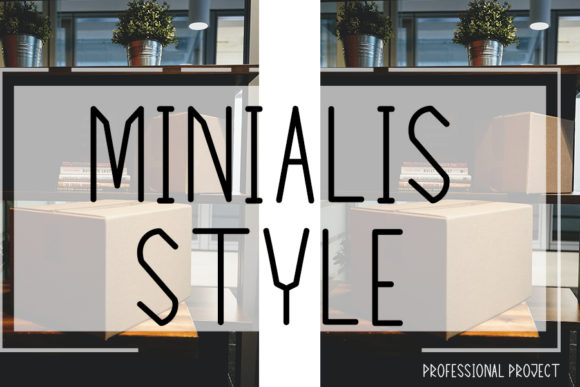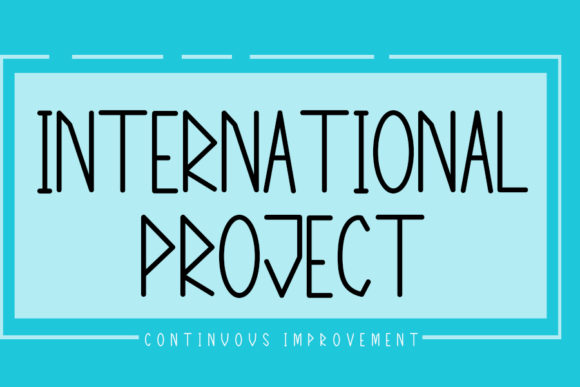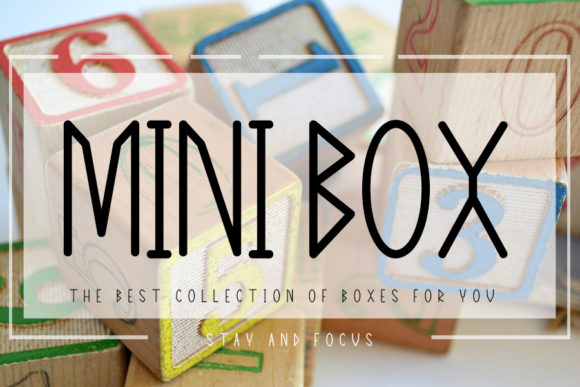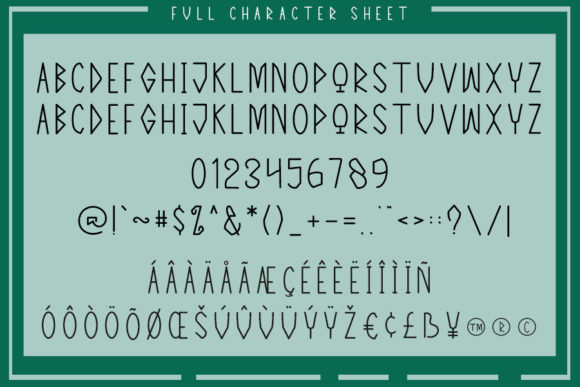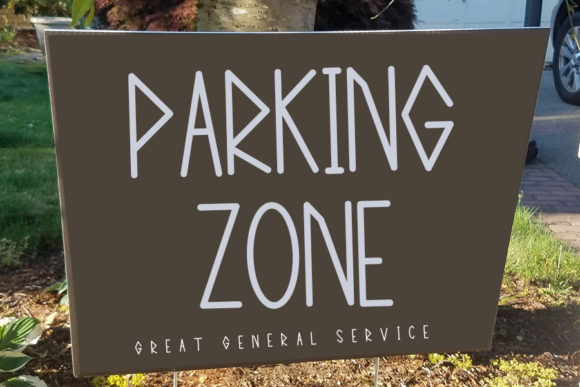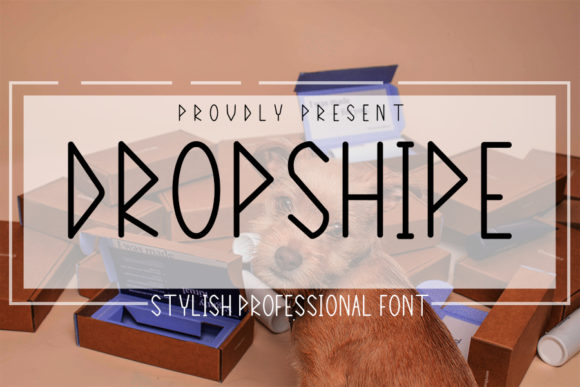
Dropshipe Font: Elevate Your Designs with a Modern Sans Serif
Dropshipe is an interesting and neat sans serif font that has been gaining popularity among designers and crafters. Its clean and modern design makes it an excellent choice for a wide range of projects, from branding and advertising to packaging and digital media. In this article, we’ll explore the features and benefits of the Dropshipe font and how it can help you take your designs to the next level.
What is Dropshipe Font?
Dropshipe font is a sans serif typeface that boasts a fresh and contemporary look. Its sleek lines and minimalist design make it perfect for designs that require a clean and modern aesthetic. The font is highly versatile and can be used for various purposes, including logos, headings, and body text.
Key Features of Dropshipe Font
- Clean and Modern Design: Dropshipe font features a sleek and modern design that is perfect for contemporary designs.
- Sans Serif Typeface: The font is a sans serif typeface, making it ideal for designs that require a clean and minimalist look.
- Highly Versatile: Dropshipe font can be used for a wide range of projects, from branding and advertising to packaging and digital media.
- Easily Readable: The font is highly legible, making it perfect for body text and headings.
Benefits of Using Dropshipe Font
There are several benefits to using Dropshipe font in your designs. Here are a few:
- Stand Out from the Crowd: Dropshipe font is a unique and modern typeface that can help your designs stand out from the crowd.
- Perfect for Branding: The font is ideal for branding and advertising projects, as it can help create a clean and modern image for your brand.
- Easy to Pair: Dropshipe font can be easily paired with other fonts to create a unique and harmonious design.
- Supports Multiple Languages: The font supports multiple languages, making it perfect for global brands and projects.
How to Use Dropshipe Font in Your Designs
Using Dropshipe font in your designs is easy. Here are a few tips to get you started:
- Use it as a Headline Font: Dropshipe font is perfect for headlines and titles, as it can help grab attention and create a lasting impression.
- Pair it with Other Fonts: Experiment with pairing Dropshipe font with other fonts to create a unique and harmonious design.
- Use it for Body Text: The font is highly legible, making it perfect for body text and paragraphs.
Tips and Tricks for Working with Dropshipe Font
Here are a few tips and tricks to help you get the most out of Dropshipe font:
- Experiment with Font Sizes: Experiment with different font sizes to create visual hierarchy and emphasis in your designs.
- Play with Color: Dropshipe font looks great in a variety of colors, so don’t be afraid to experiment and find the perfect color for your design.
- Use it in Combination with Images: The font looks great in combination with images, so try using it to add text to your images and graphics.
Dropshipe font is a modern and versatile sans serif typeface that can add a touch of elegance and sophistication to your designs. Its clean and minimalist design makes it perfect for a wide range of projects, from branding and advertising to packaging and digital media. With its ease of use and flexibility, Dropshipe font is an excellent choice for designers and crafters looking to elevate their designs and take them to the next level.